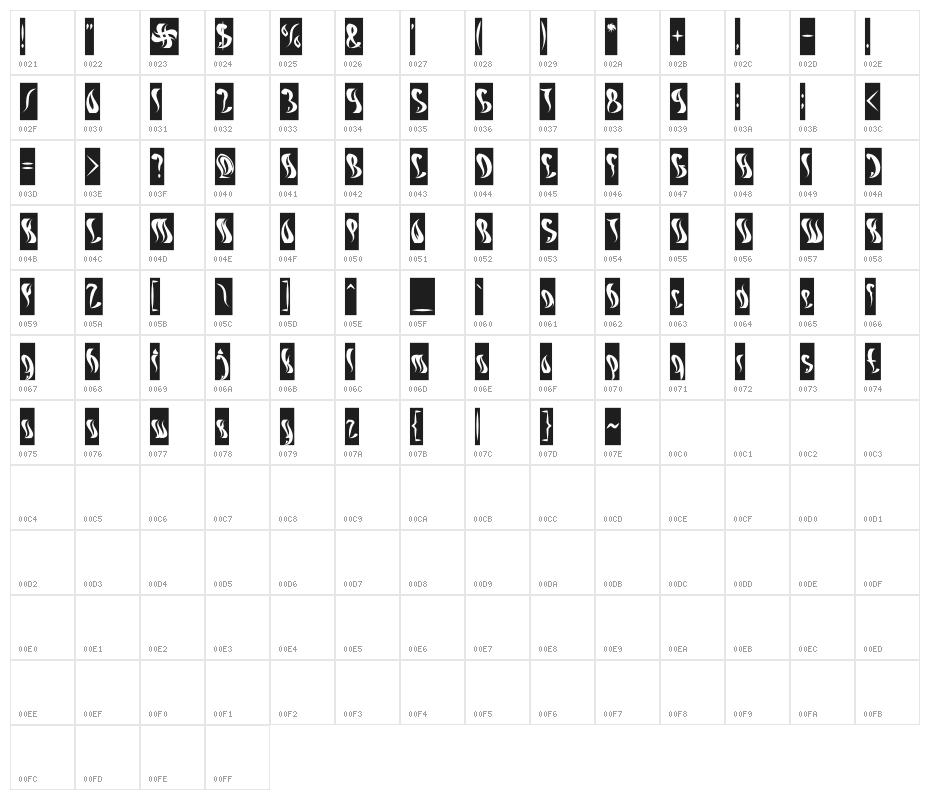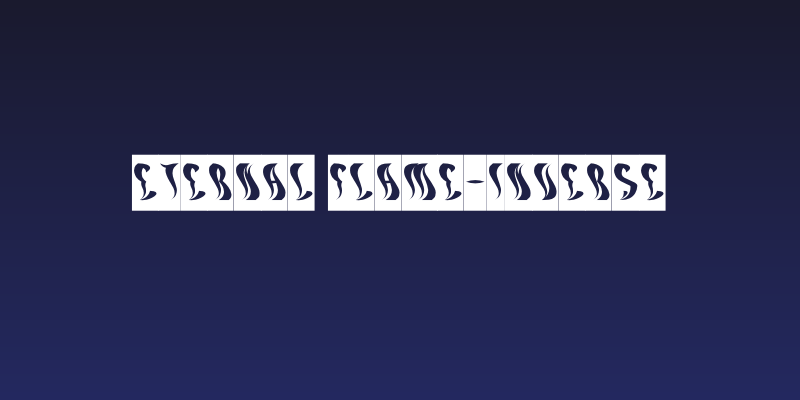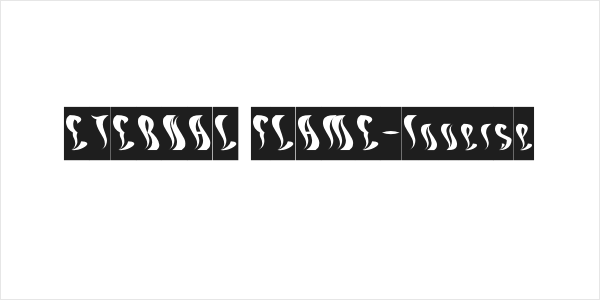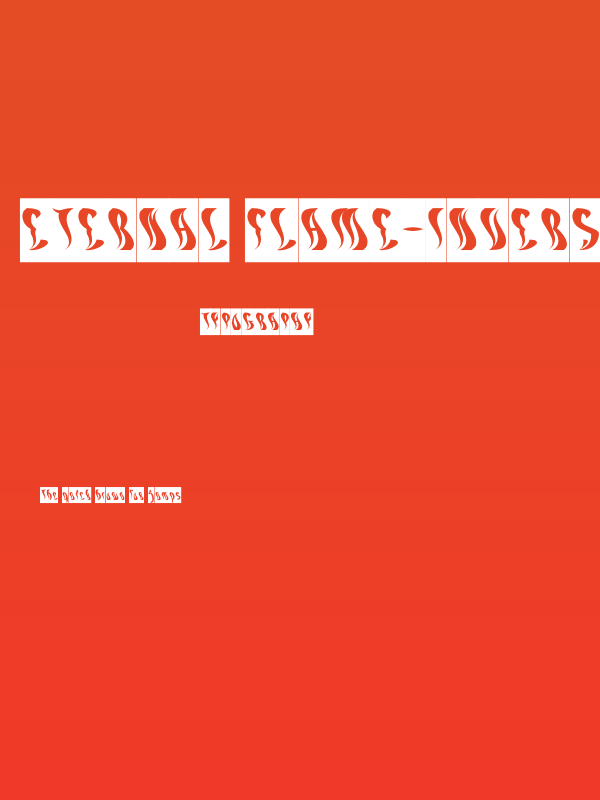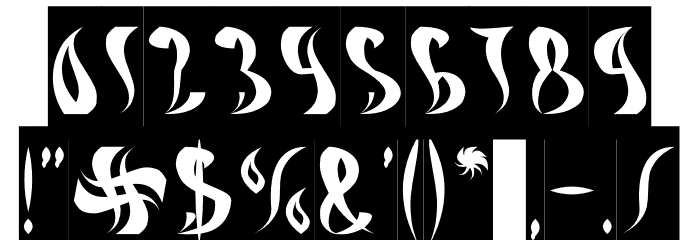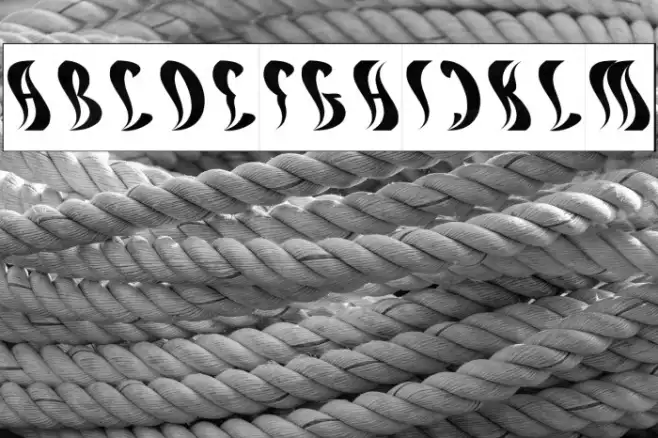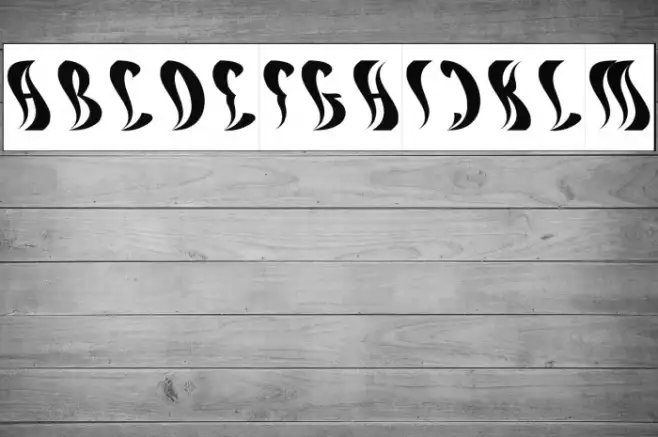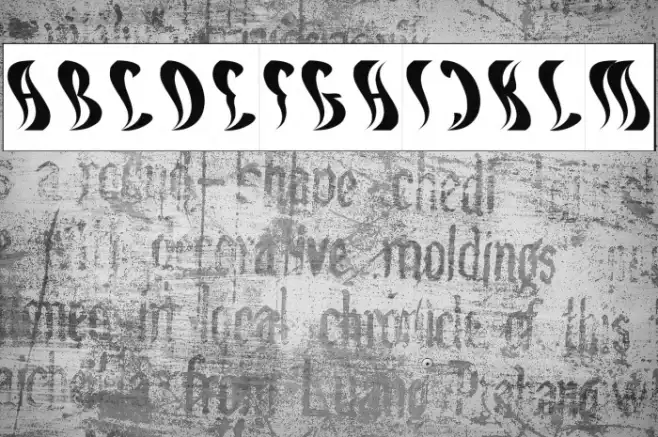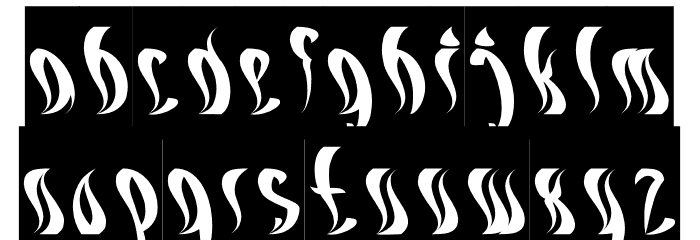
ETERNAL FLAME-Inverse Font
ETERNAL FLAME-Inverse Description
This font features a dramatic and artistic style with high contrast between thick and thin strokes, creating a flame-like appearance. The characters are uniquely shaped with sharp, flowing curves that give an impression of movement and energy. The uppercase and lowercase letters maintain a consistent style, with each character exhibiting a distinct flair. Numbers and special characters follow the same dynamic design, making the font suitable for eye-catching displays. The overall aesthetic is bold and expressive, perfect for projects that require a strong visual impact.
| Proposed Projects | Ideal for branding, posters, album covers, and any design needing a striking, artistic touch. |